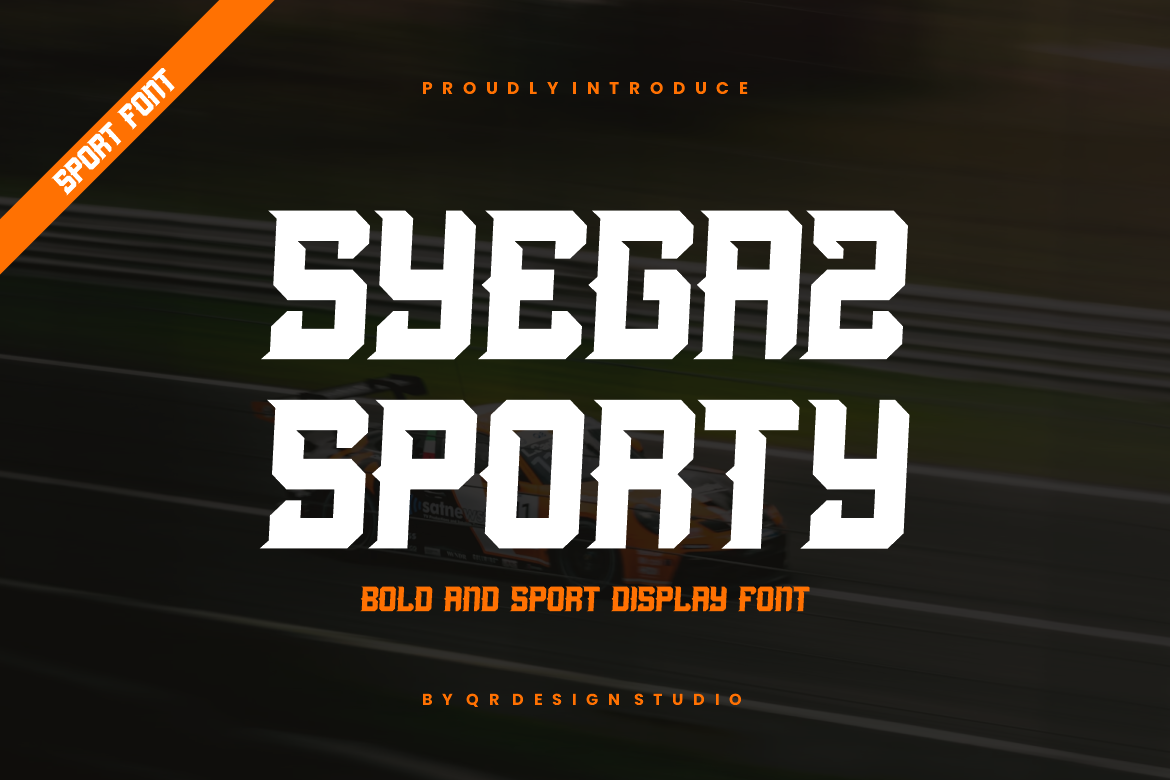
Syegaz Sporty - Racing & Speed Font
Syegaz Sporty Font is a bold and authentic display font. The font is suitable for any branding project like poster, logo, sport, and many more. Outstanding in a wide range of contexts.